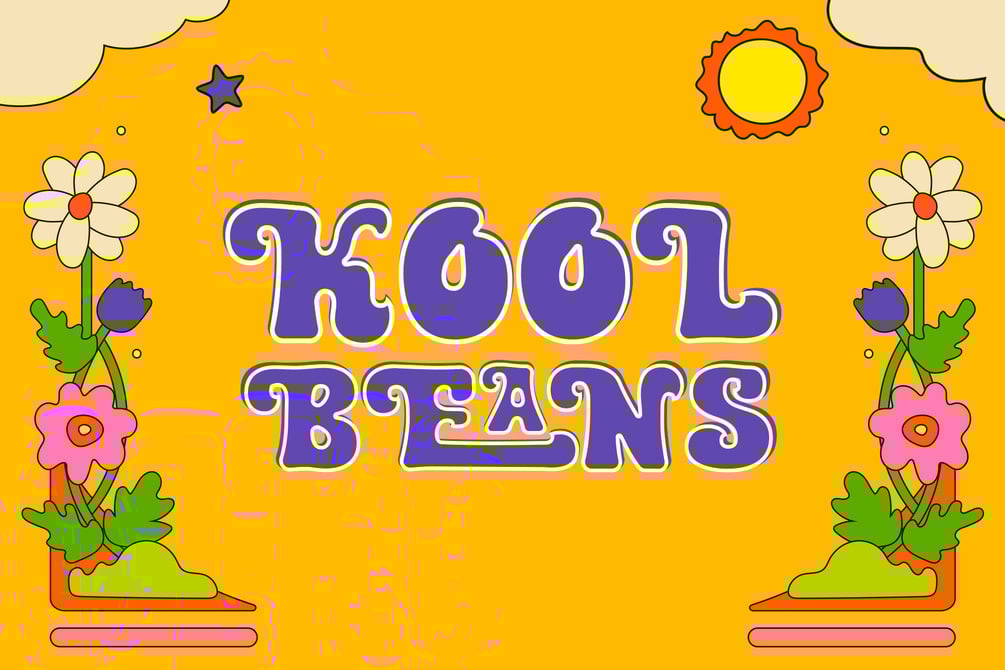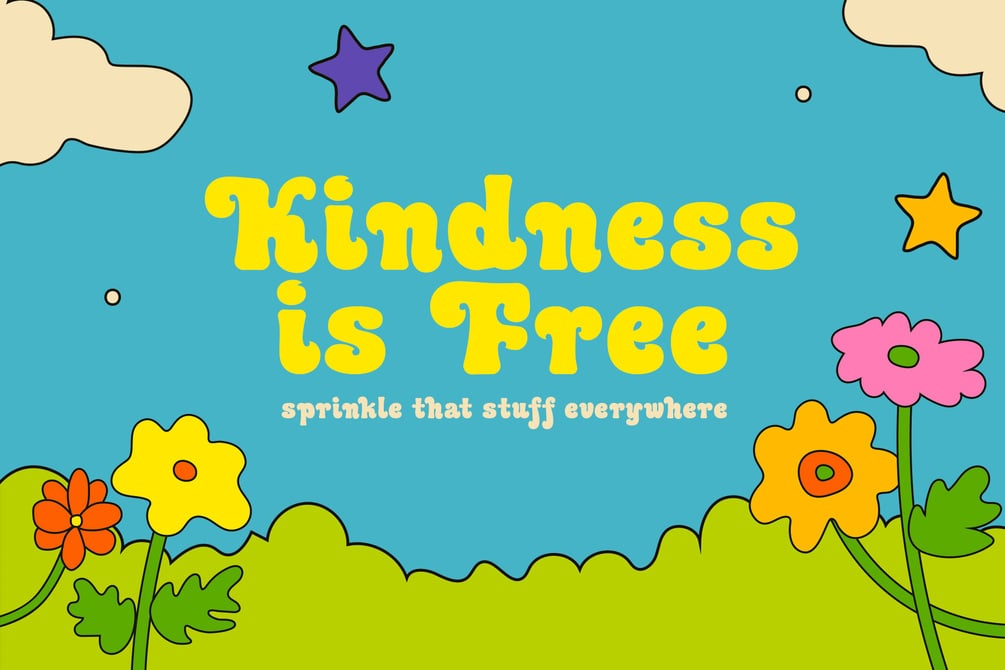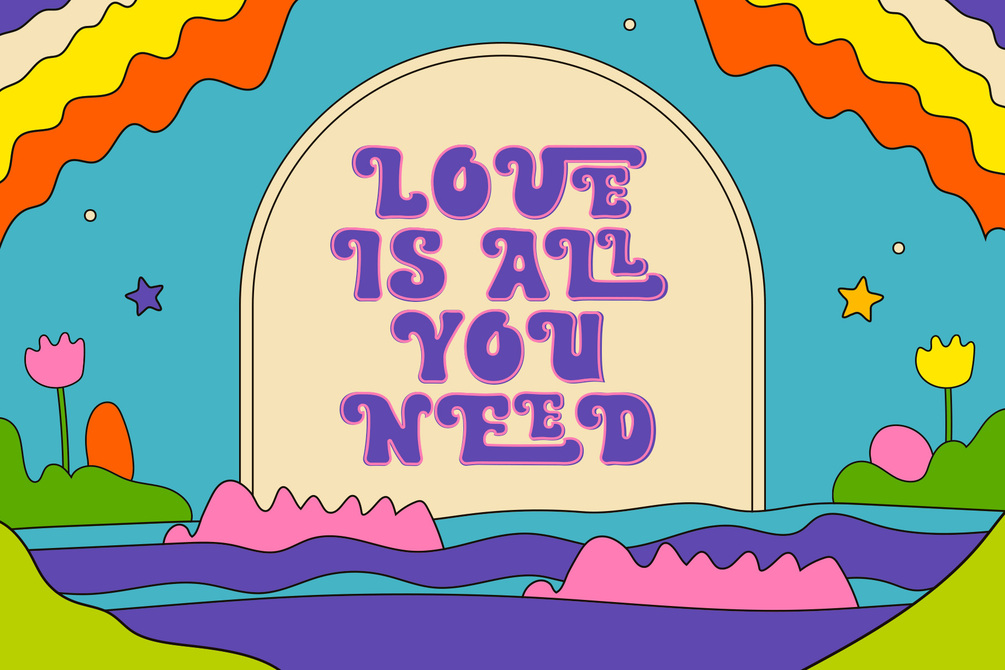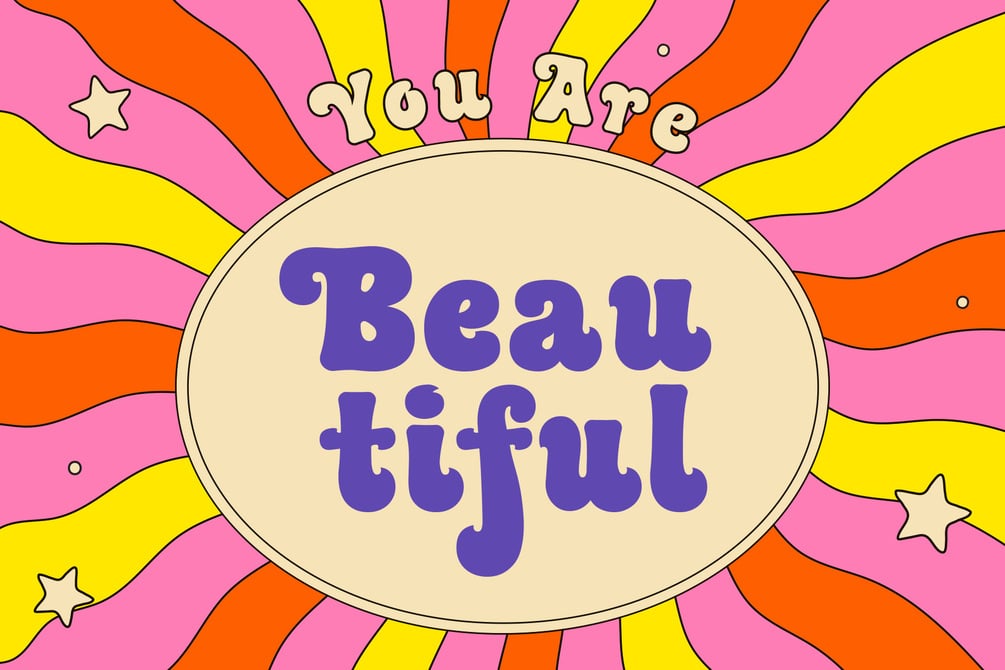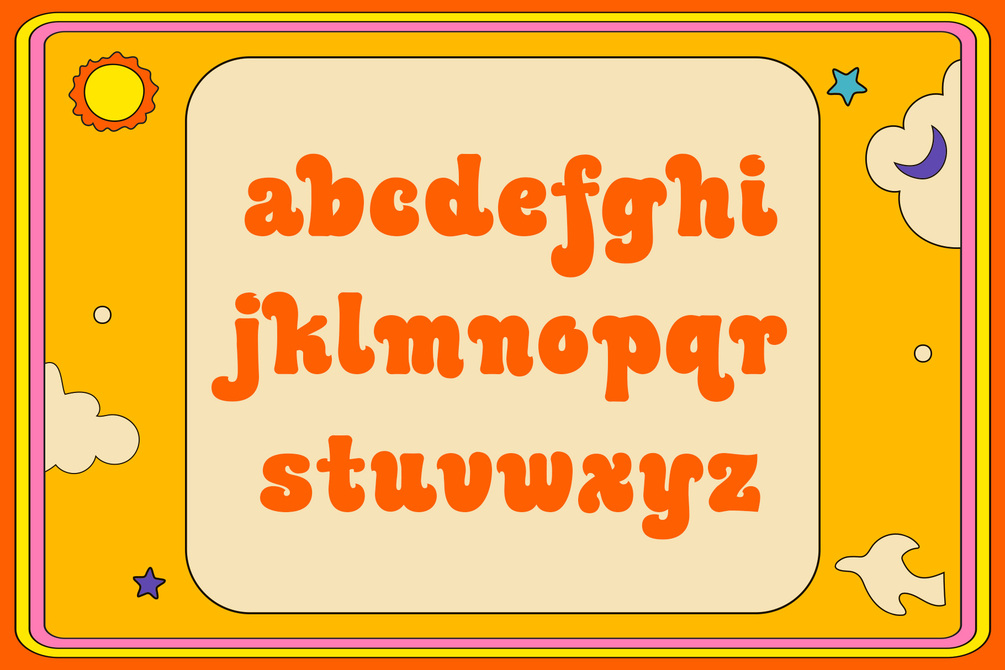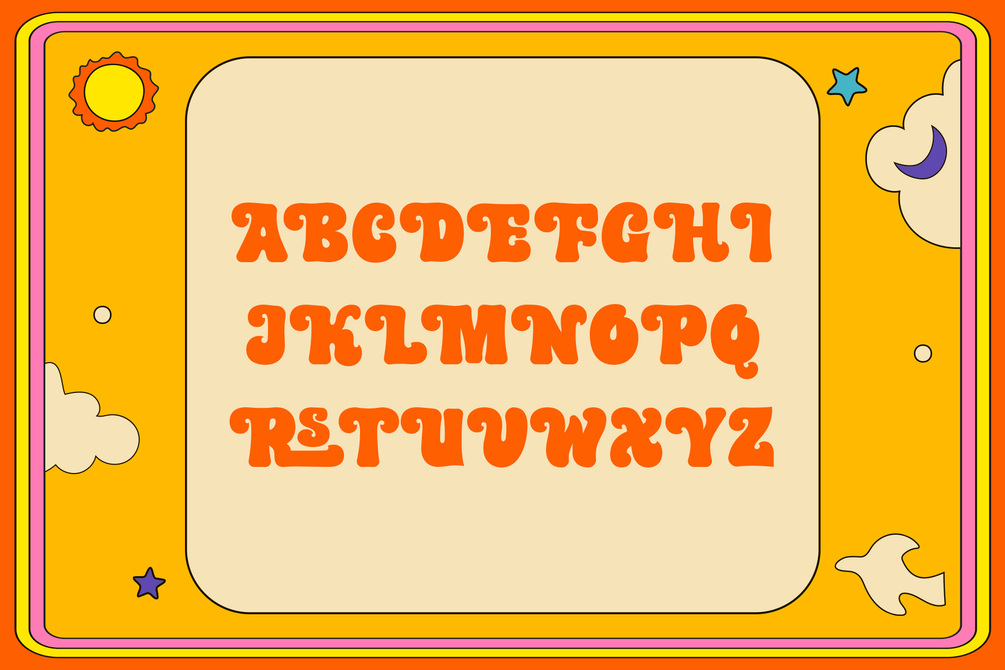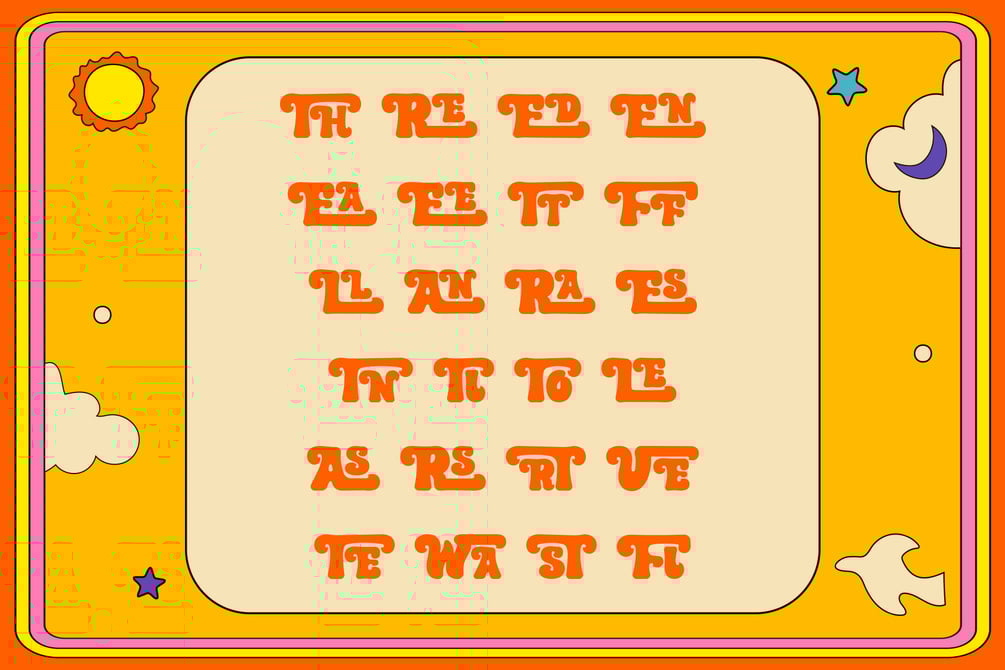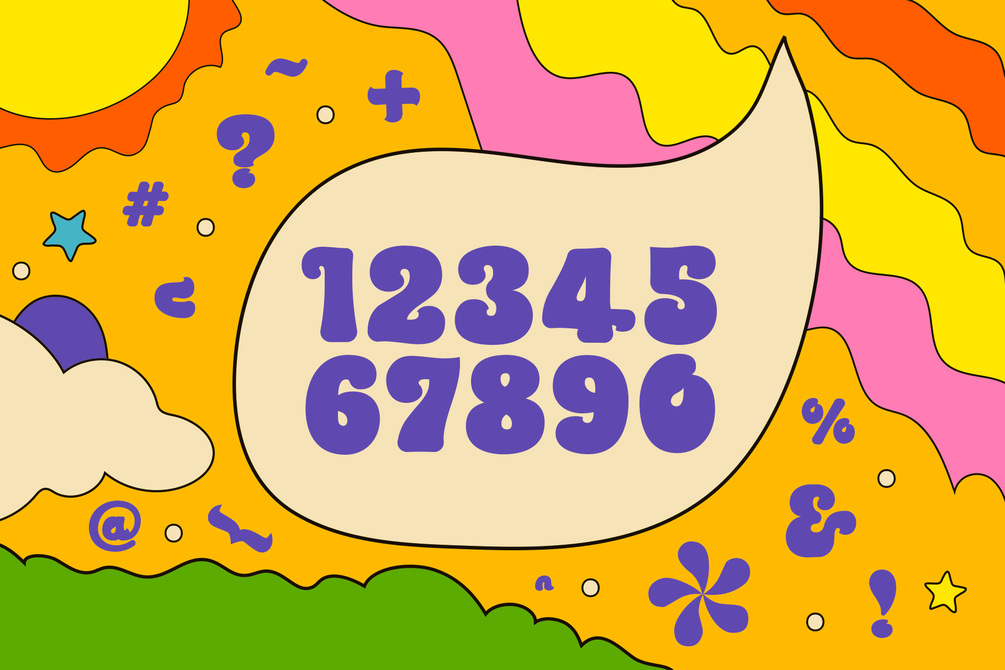
Kool Beans - Groovy Display Typeface
Kool Beans is a 1960-70s inspired type that embraces the groovy psychedelia era. This font is perfect for any project that requires an authentic retro feel. Kool Beans can be used for magazine covers, social media posts, quote posters, book covers, merchandise, websites, advertising, branding, and more.
Kool Beans comes in 2 unique styles, solid and outline. You can use both of the fonts to make your designs come to life by giving them a 3d feeling. I also added some rad ligatures and alternative glyphs. Enjoy!